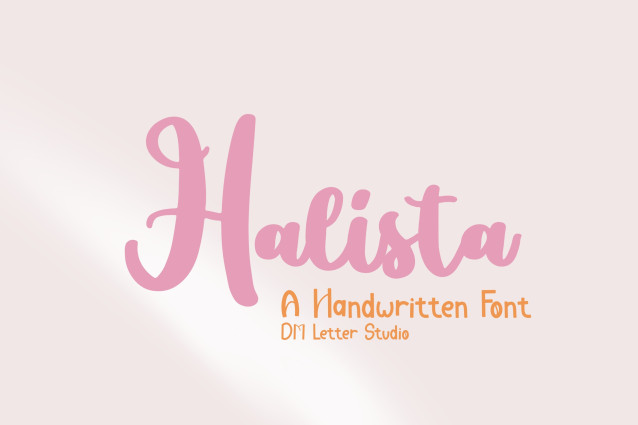
Halista Script Font
Halista Script Font is a charming handwritten font with a soft, flowing character and an effortless natural feel. Designed to mimic casual penmanship, it brings warmth and personality to any creative project. Whether you’re designing logos, quotes, or wedding invitations, Halista adds a graceful, handcrafted touch that feels both elegant and approachable.